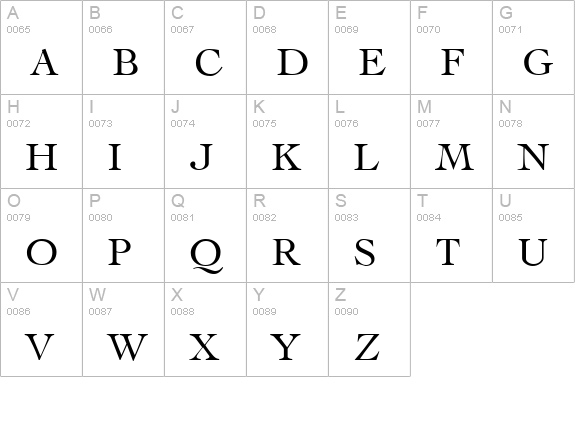
Cocktail Regular Font Details
Cocktail Regular is the standard, neutral variant in the Cocktail typeface family \xE2\x80\x94 well suited to general body text, paragraphs, and standard typographic work.
Cocktail Regular font is a versatile and stylish typeface that exudes a classic charm with a modern twist. Its sleek lines and elegant curves make it perfect for a wide range of design projects, from branding to editorial design. Whether you're creating a sophisticated logo or designing a sleek website, Cocktail Regular font is sure to make a statement. This font is not only visually appealing but also highly readable, making it a great choice for both print and digital applications. The timeless elegance of Cocktail Regular font will add a touch of sophistication to any project. Best of all, Cocktail Regular font is completely free to download at FontsMarket.com. So don't miss out on the opportunity to enhance your designs with this beautiful and versatile typeface. Download Cocktail Regular font today and see the difference it can make in your creative projects.